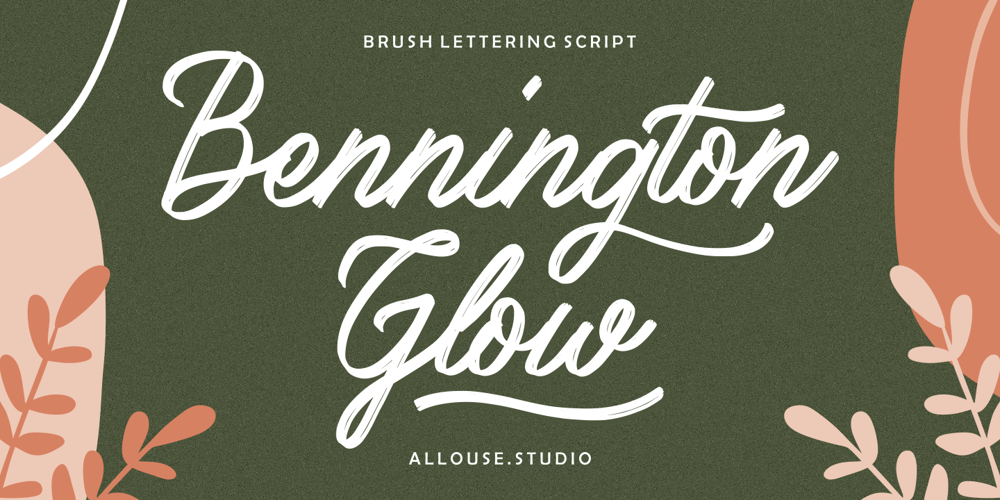
Bennington Glow Font Family was designed by Fachrizal Yusuf and published by Allouse Studio. Bennington Glow contains 1 styles and family package options. Proudly Presenting, Bennington Glow a Brush Lettering Script which will give you natural impression for your needs.Bennington Glow come with Alternates, swash, ligatures and Multi-Lingual Support to fulfill your need.We highly recommend using a program that supports OpenType features and Glyphs panels like many of Adobe apps and Corel Draw, so you can see and access all Glyph variations.Bennington Glow is perfect for any tittle, logo, product packaging, branding project, megazine, social media, wedding, or just used to express words above the background.Enjoy the font, feel free to comment or feedback, send me PM or email. Thank You!